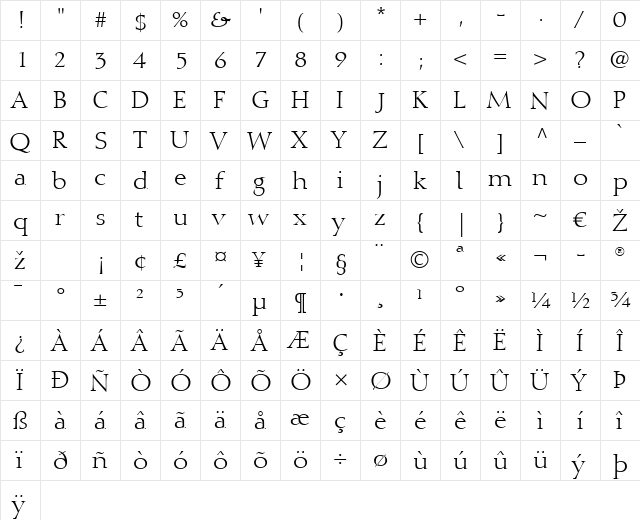
Diotima LT Roman Regular
Design Context for Diotima LT Roman Typeface
Diotima LT Roman takes a measured approach to typography — its balanced proportions and neutral character make it a reliable workhorse for both digital and print work. The delicate stroke weight brings airiness and refinement to layouts.